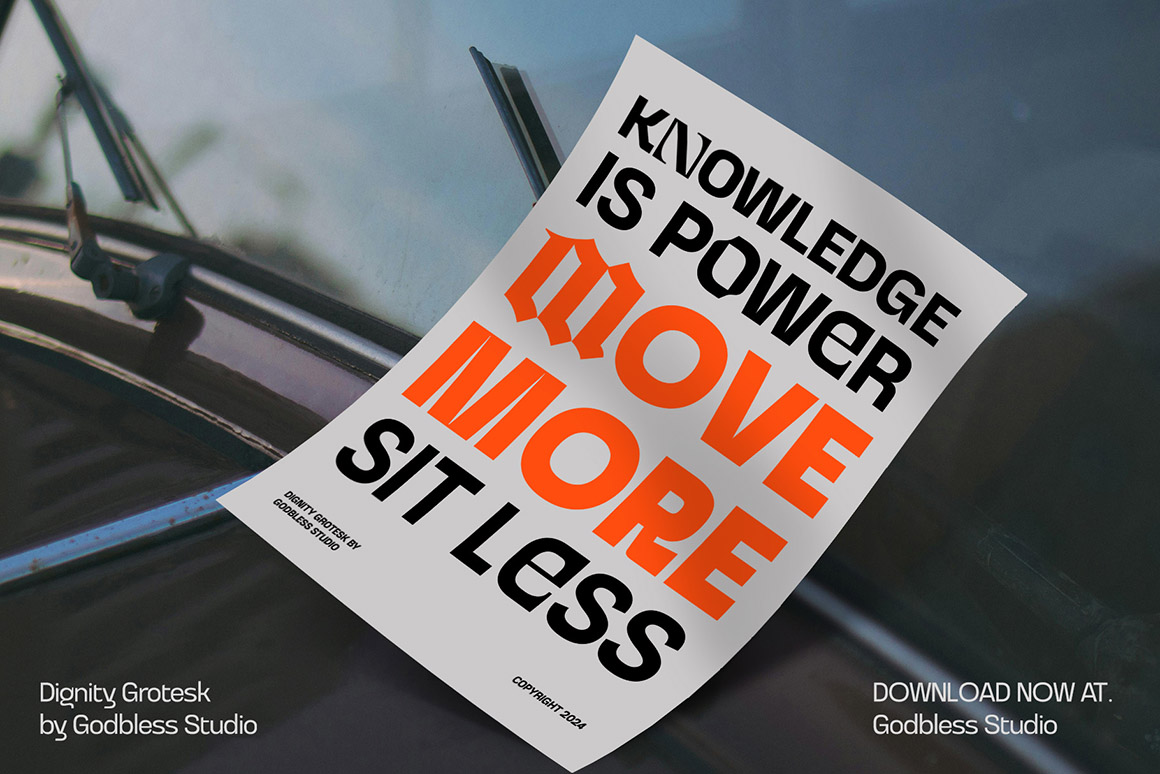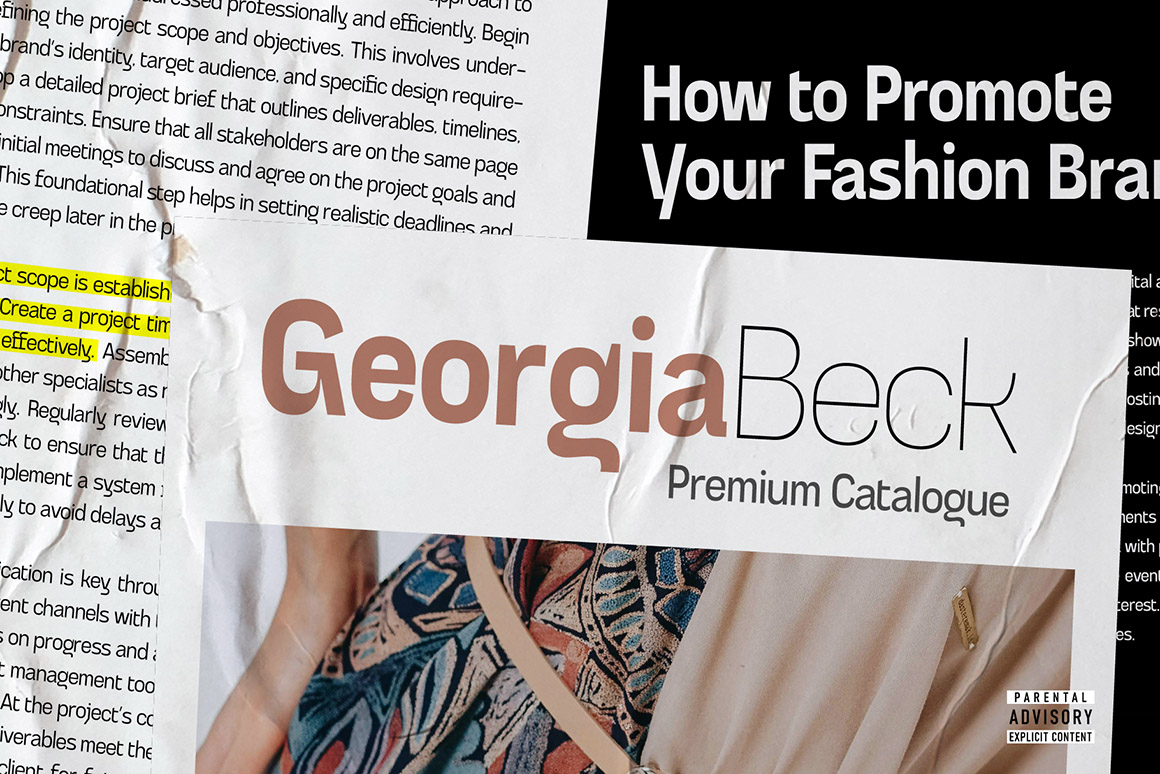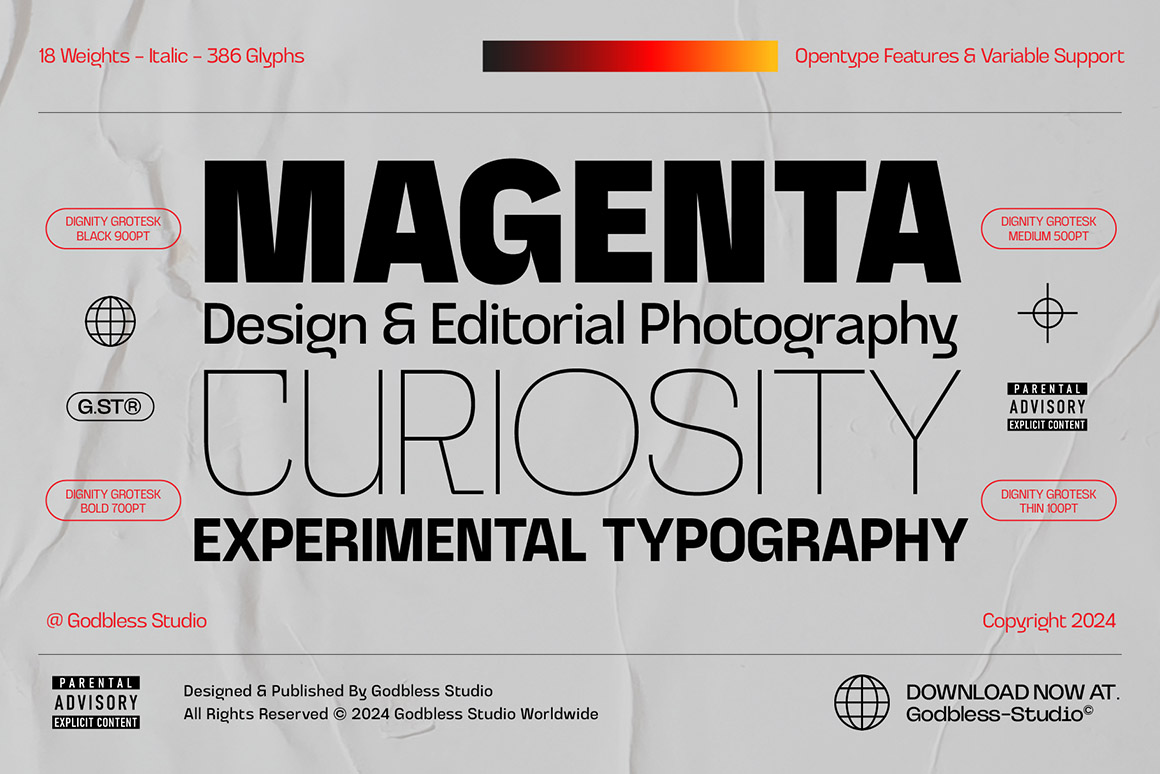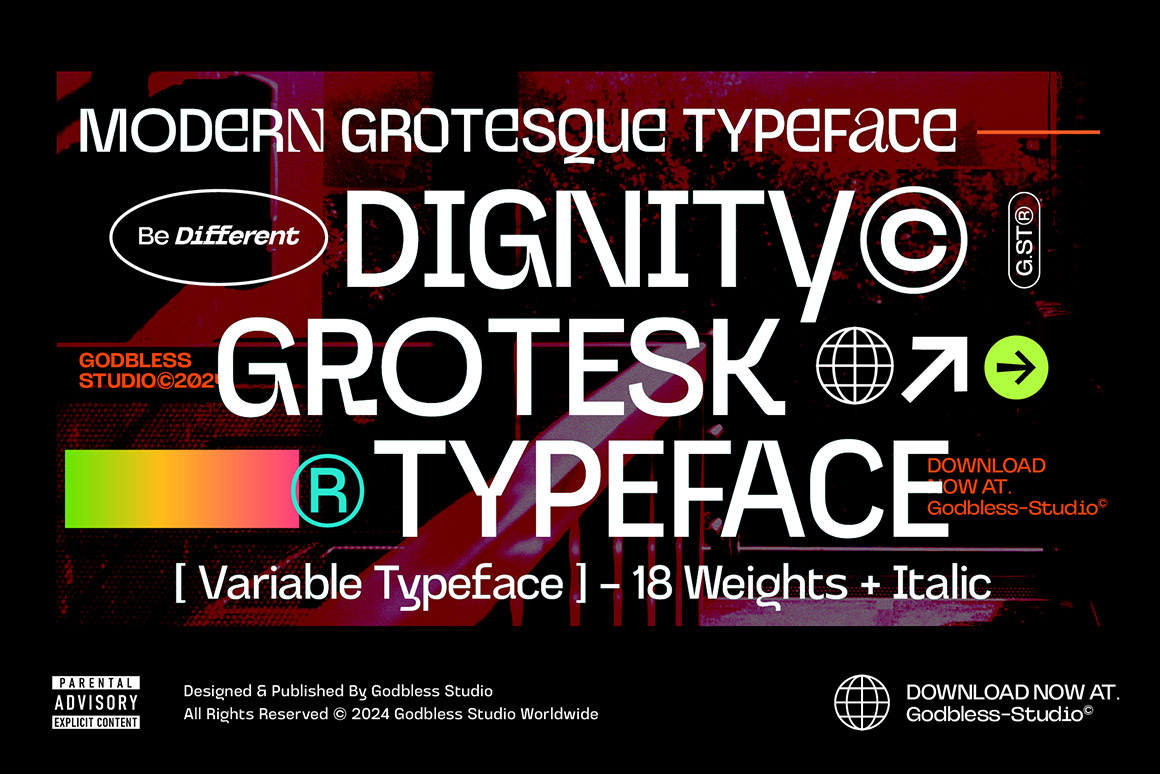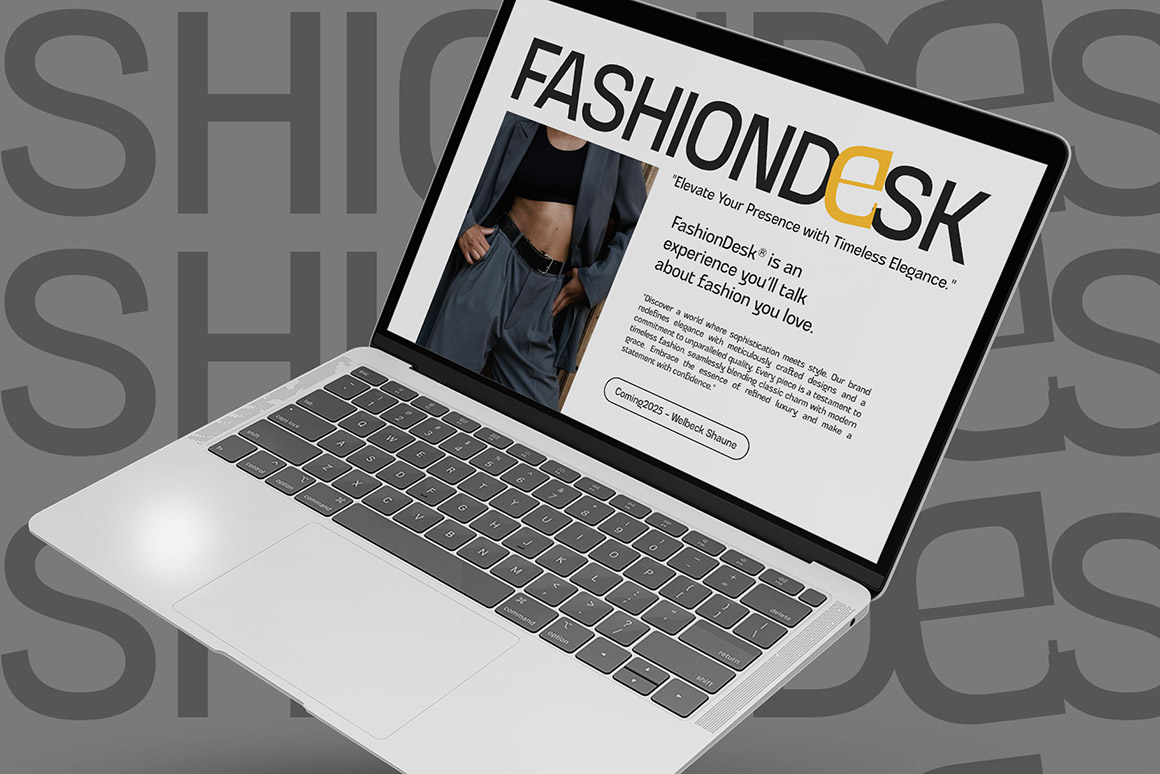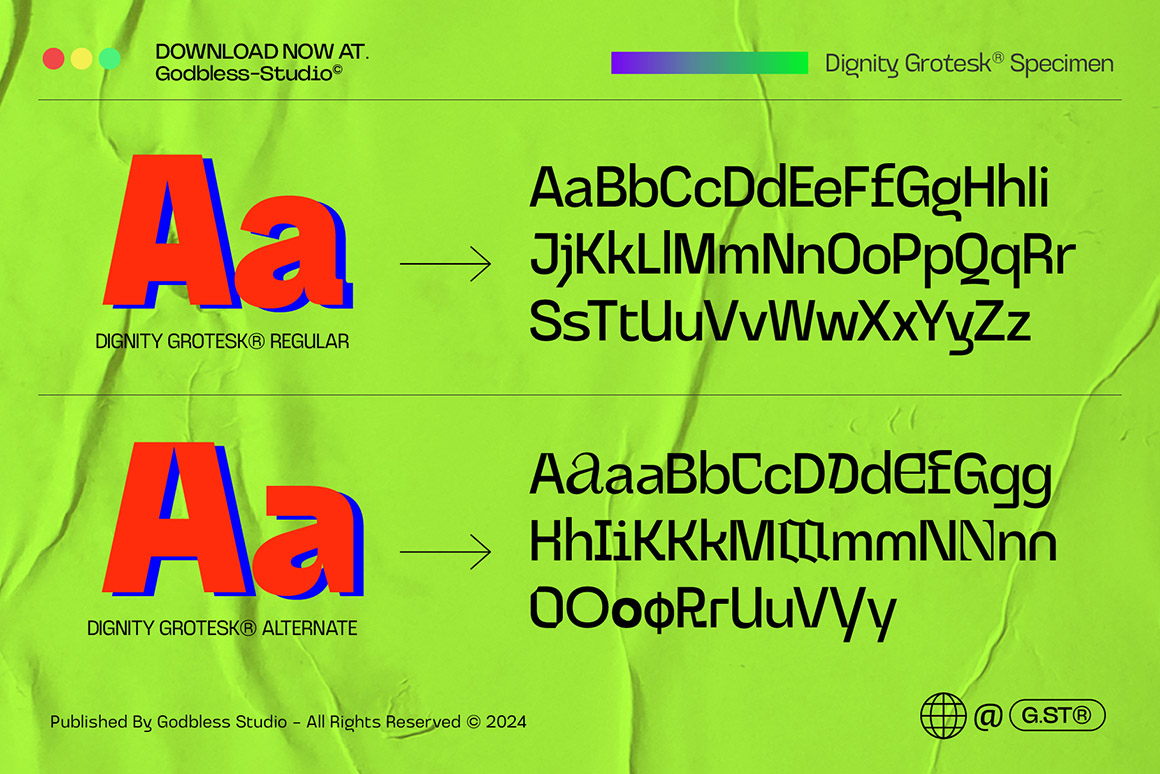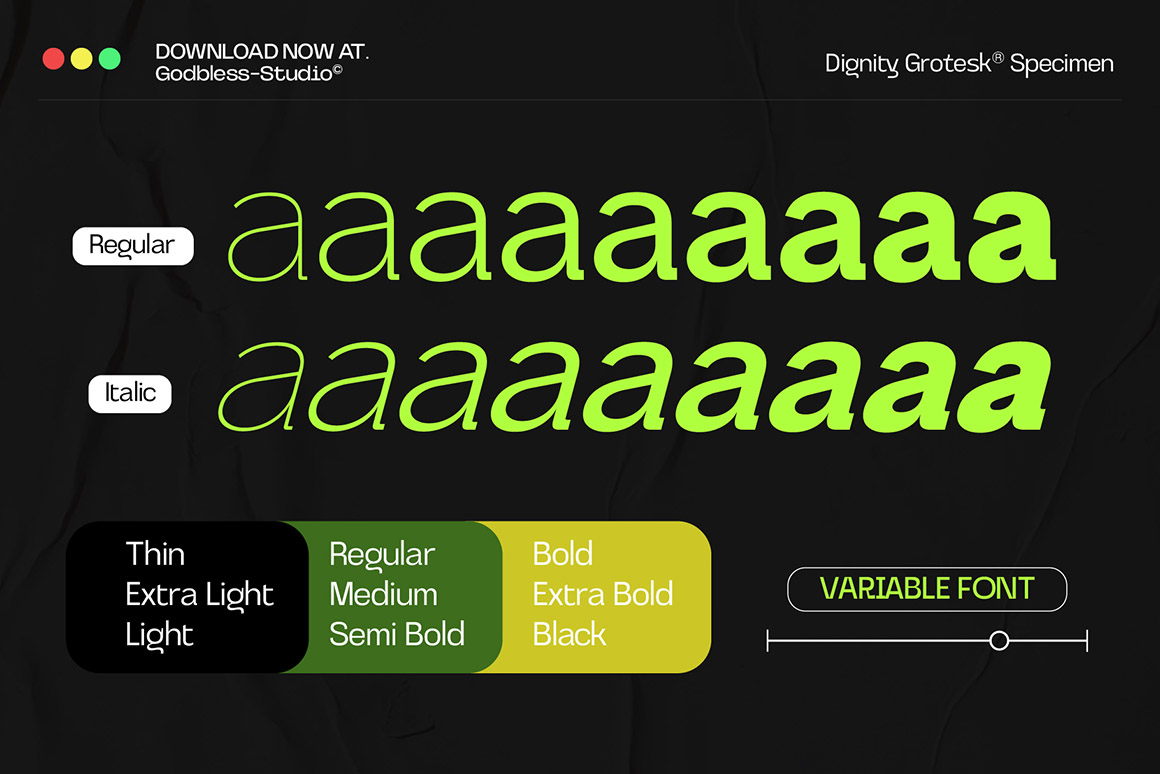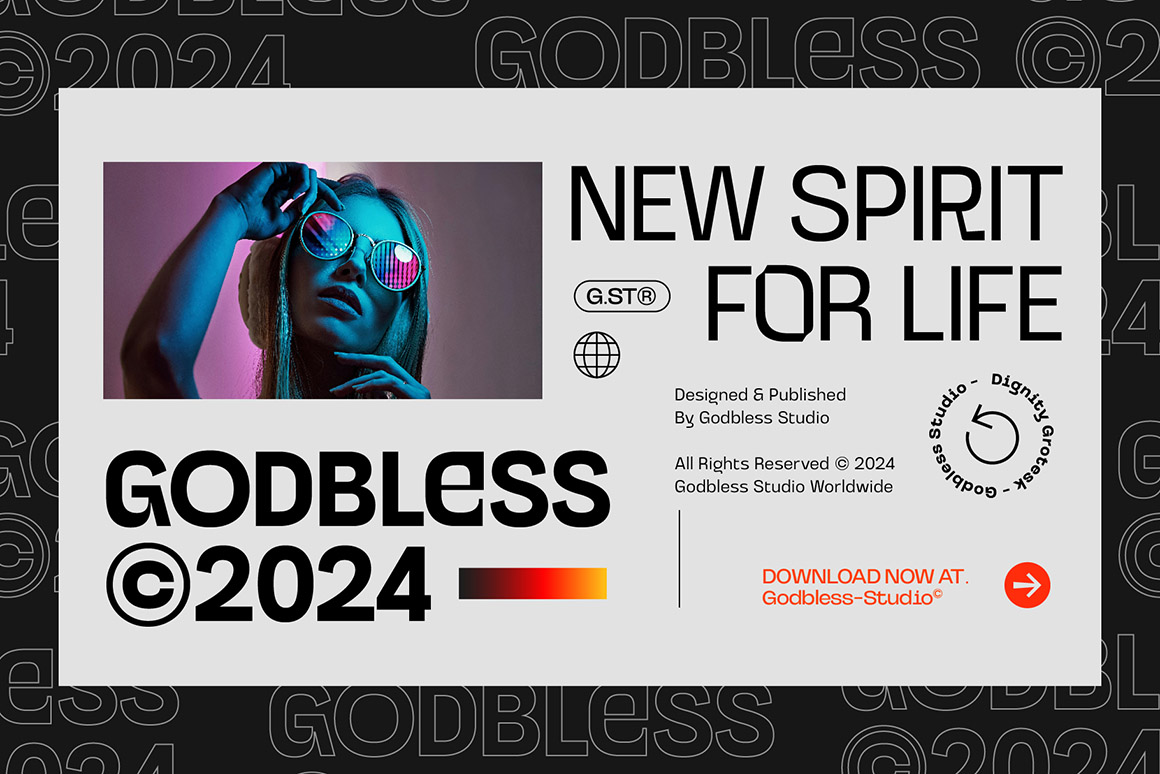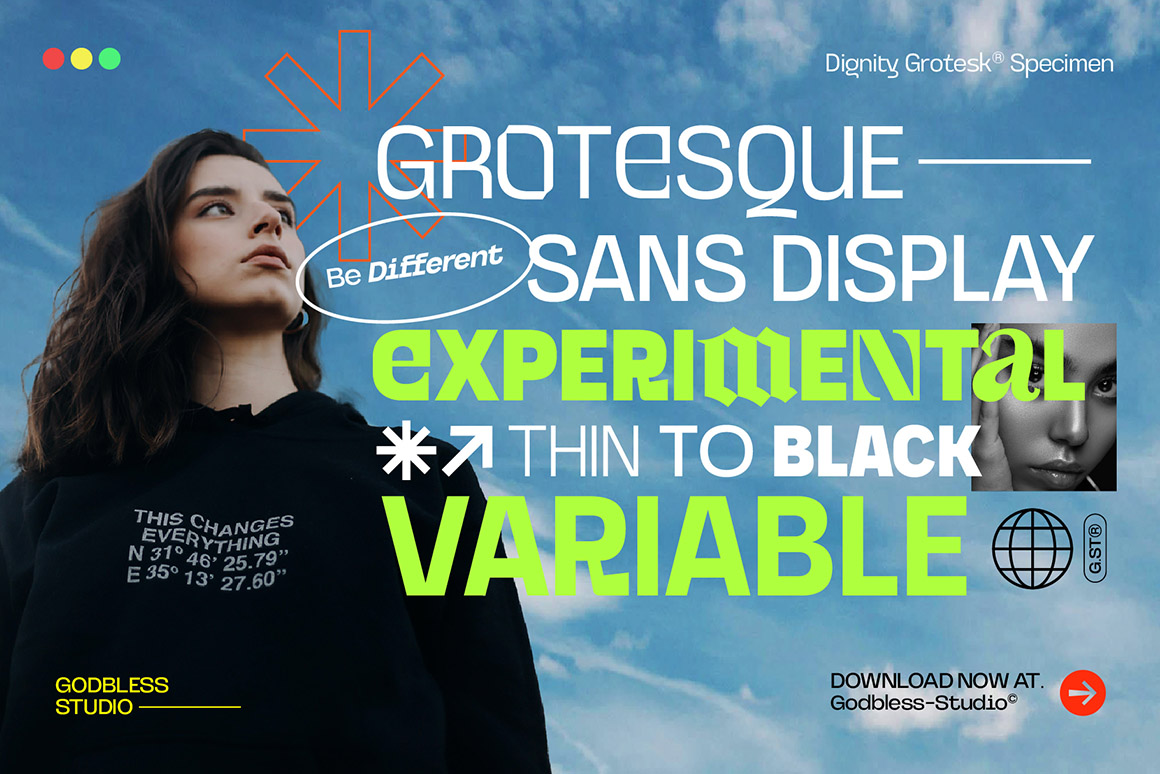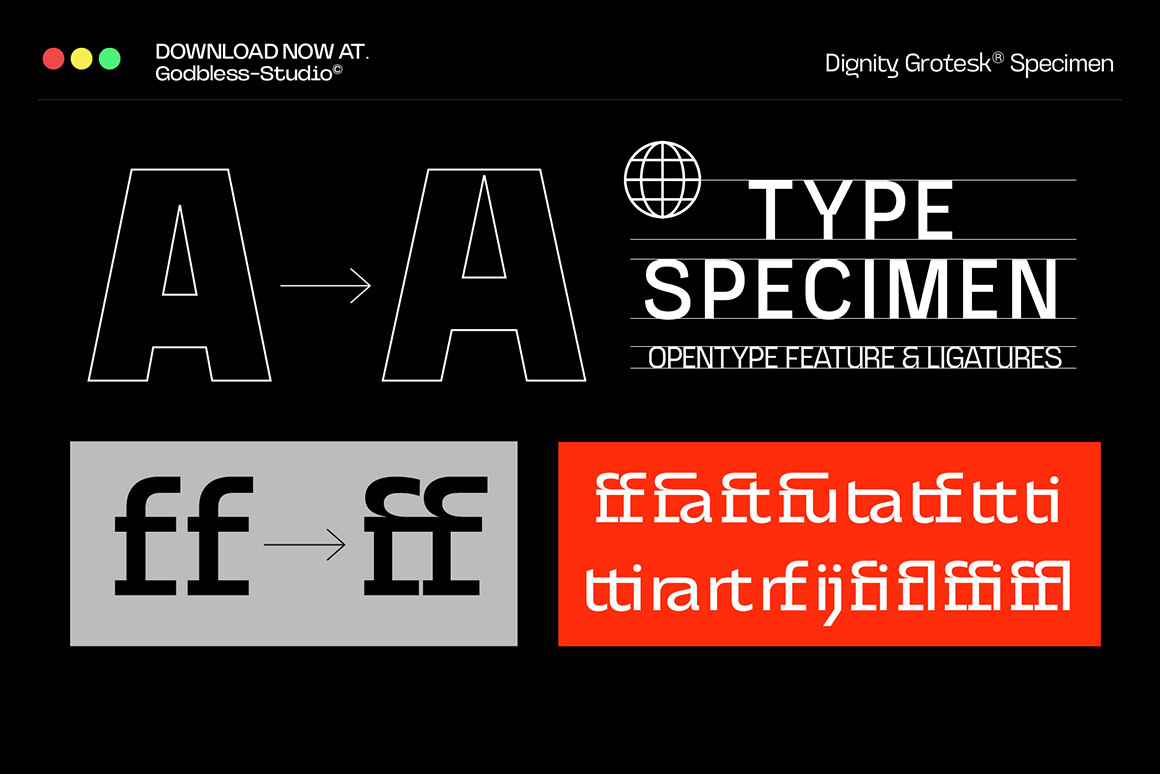
Introducing “Dignity Grotesk” – The Ultimate Font for All Your Design Needs! Elevate your design projects with Dignity Grotesk, a stunning and unique font that blends sophistication with versatility. Crafted to make an impact, this font is perfect for a wide range of applications, from eye-catching branding to elegant magazine layouts and beyond.
Dignity Grotesk – Variable Font from Godbless Studio contains 18 multilingual fonts for your new modern or futuristic projects! Don’t miss this trendy & sharp style branding font 😉
- 18 multilingual fonts (9 weights + italic) for your new modern or futuristic projects!
- Multilingual – Alternates – Ligatures
Dignity Grotesk Variable Font – trendy & modern typeface with 9 weights + italic
Why Choose Dignity Grotesk?
- Distinctive Character: Dignity Grotesk features a refined and stylish design with smooth lines and dynamic shapes. Its modern yet timeless appearance makes it ideal for creating memorable and professional visual identities.
- Versatile Application: Whether you’re working on branding, logo creation, magazine layouts, posters, book covers, or sublimation projects, Dignity Grotesk adapts seamlessly to all these contexts. Its flexibility ensures it fits perfectly into any design scheme.
- User-Friendly Design: Designed for ease of use, Dignity Grotesk offers various styles and weights, allowing you to select the perfect option for every project. Its intuitive design process enhances your overall experience.
- Enhance Your Designs: With Dignity Grotesk, every project exudes professionalism and elegance. This font is designed to strengthen your visual message and deliver impressive results.
- Dignity Grotesk Variable Font – trendy & modern typeface with 9 weights + italic